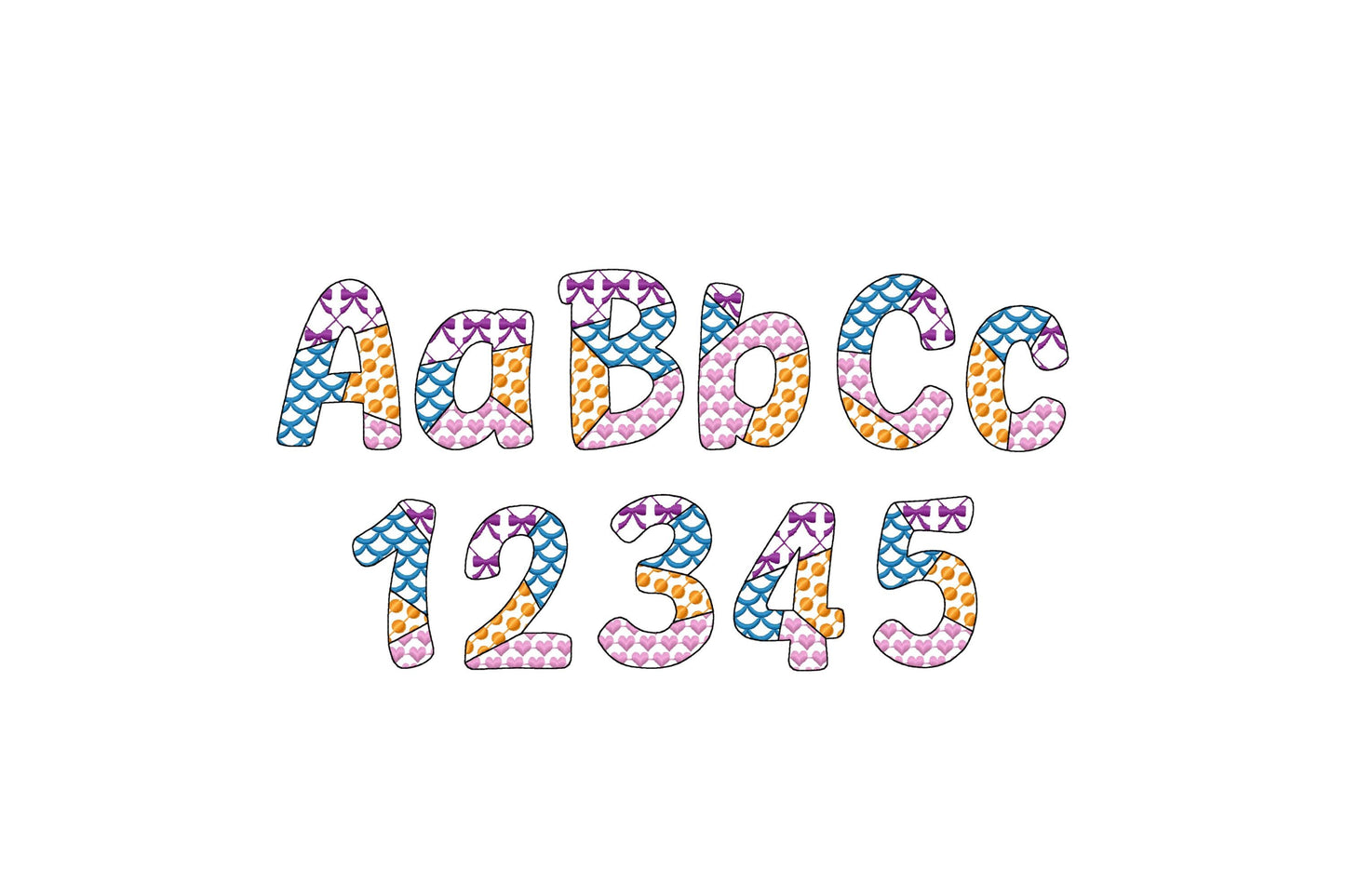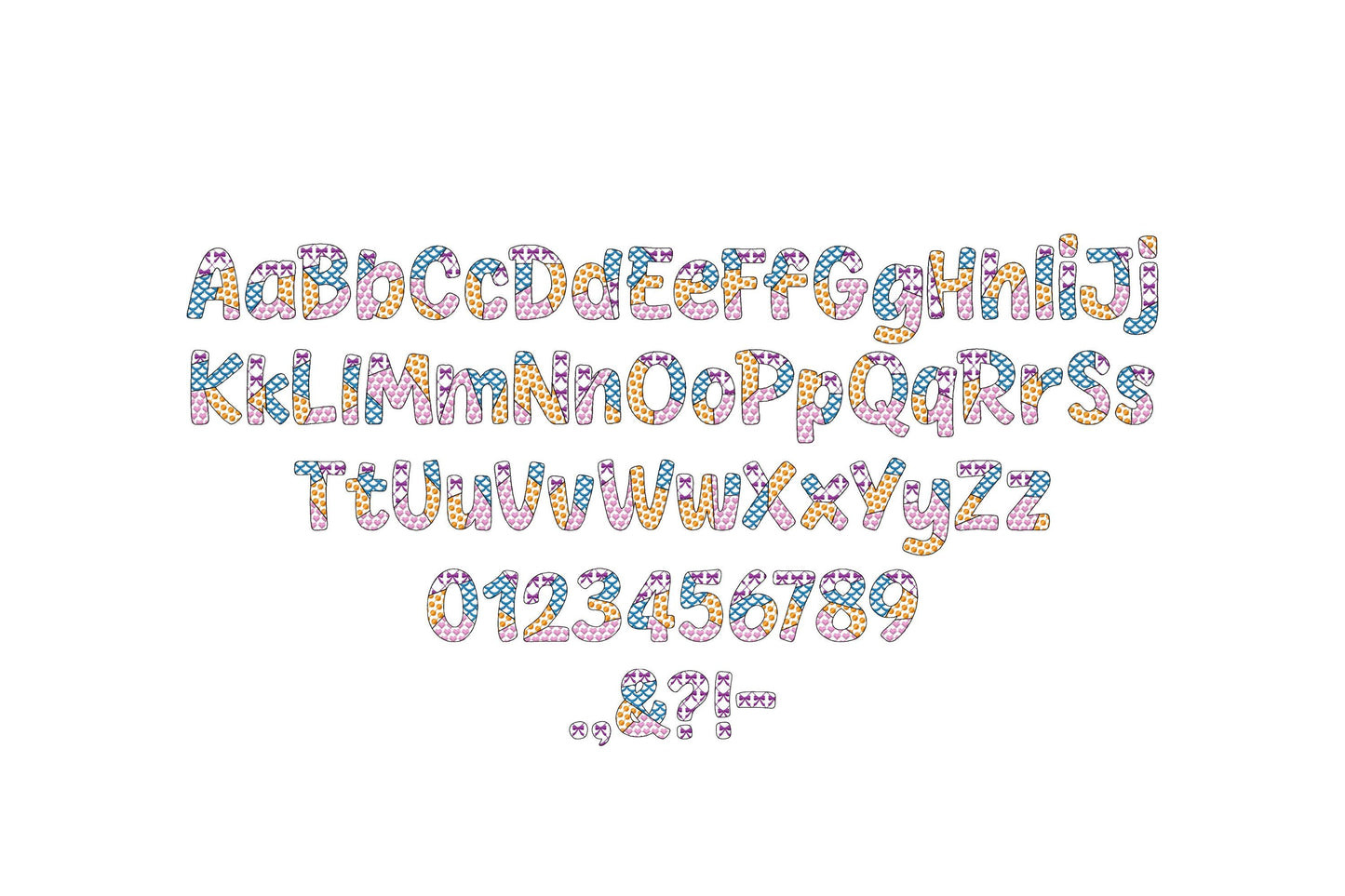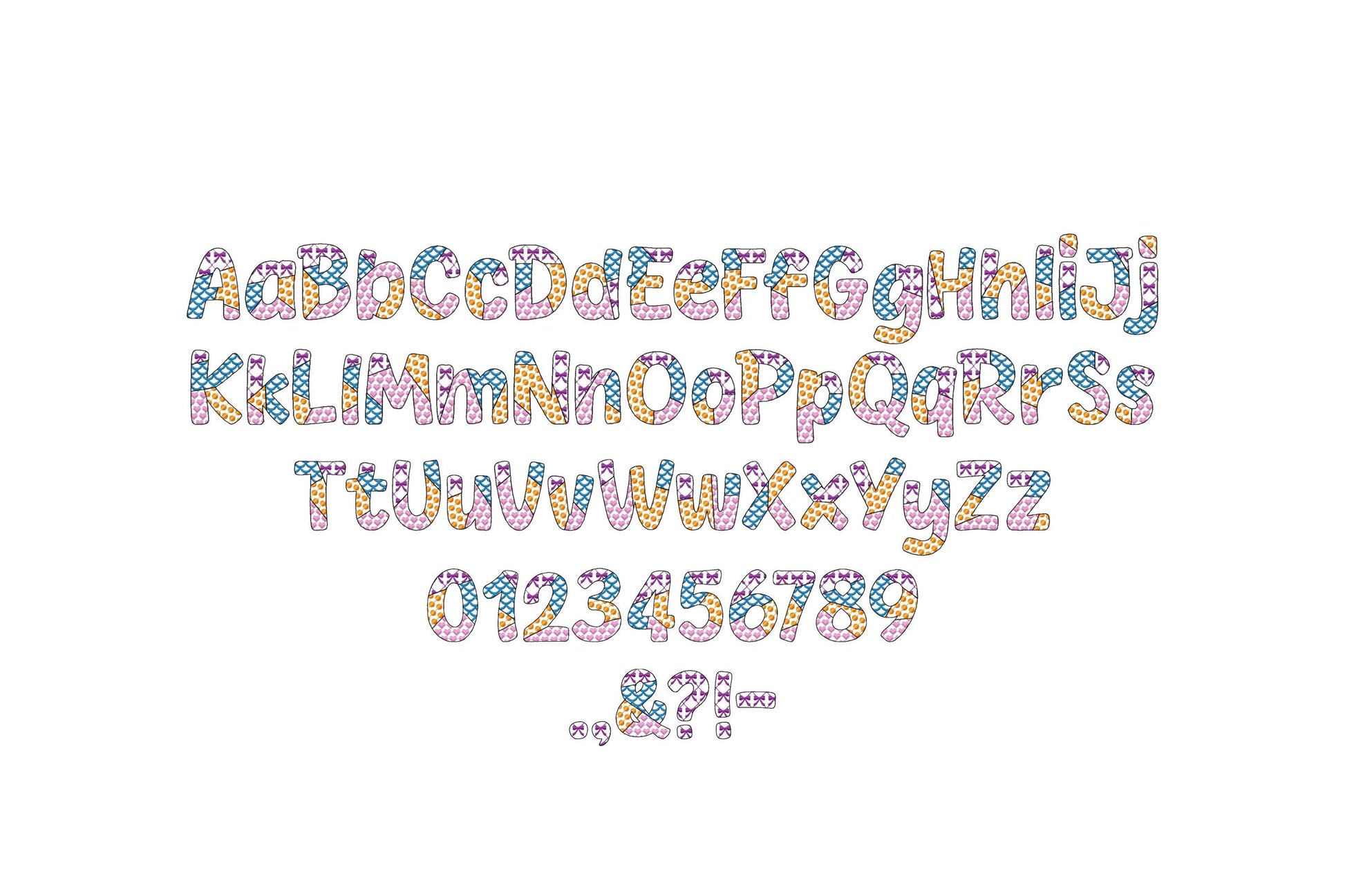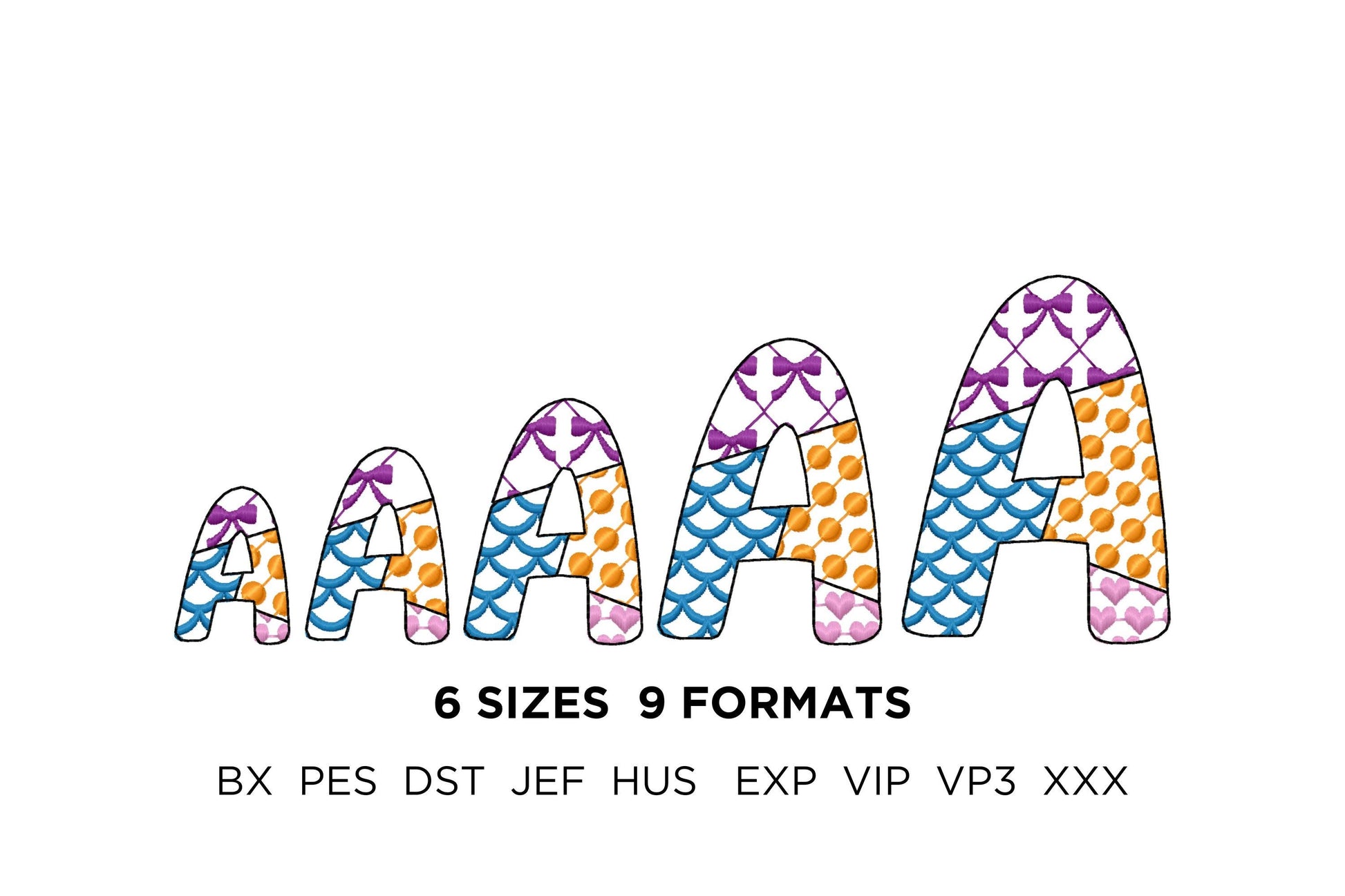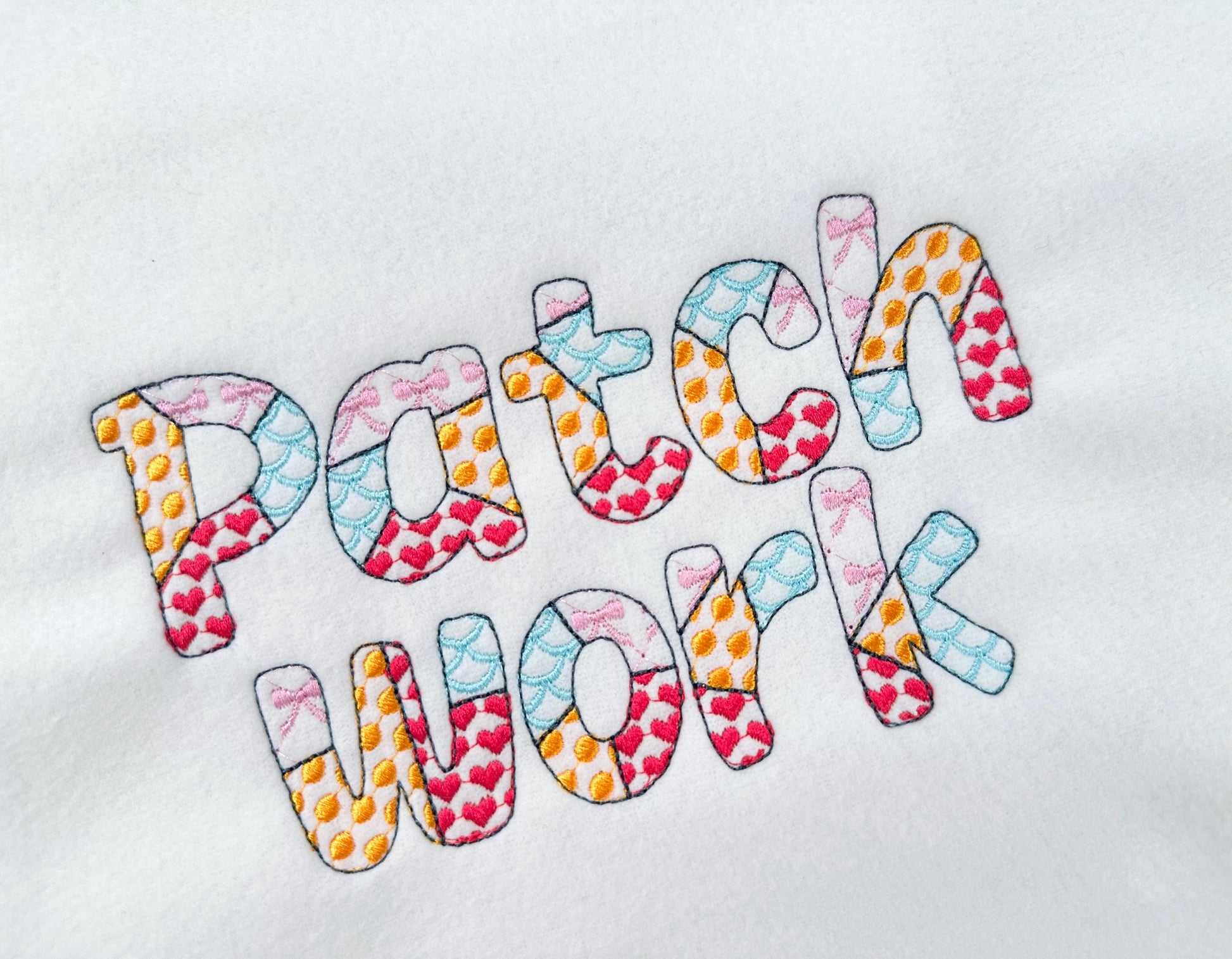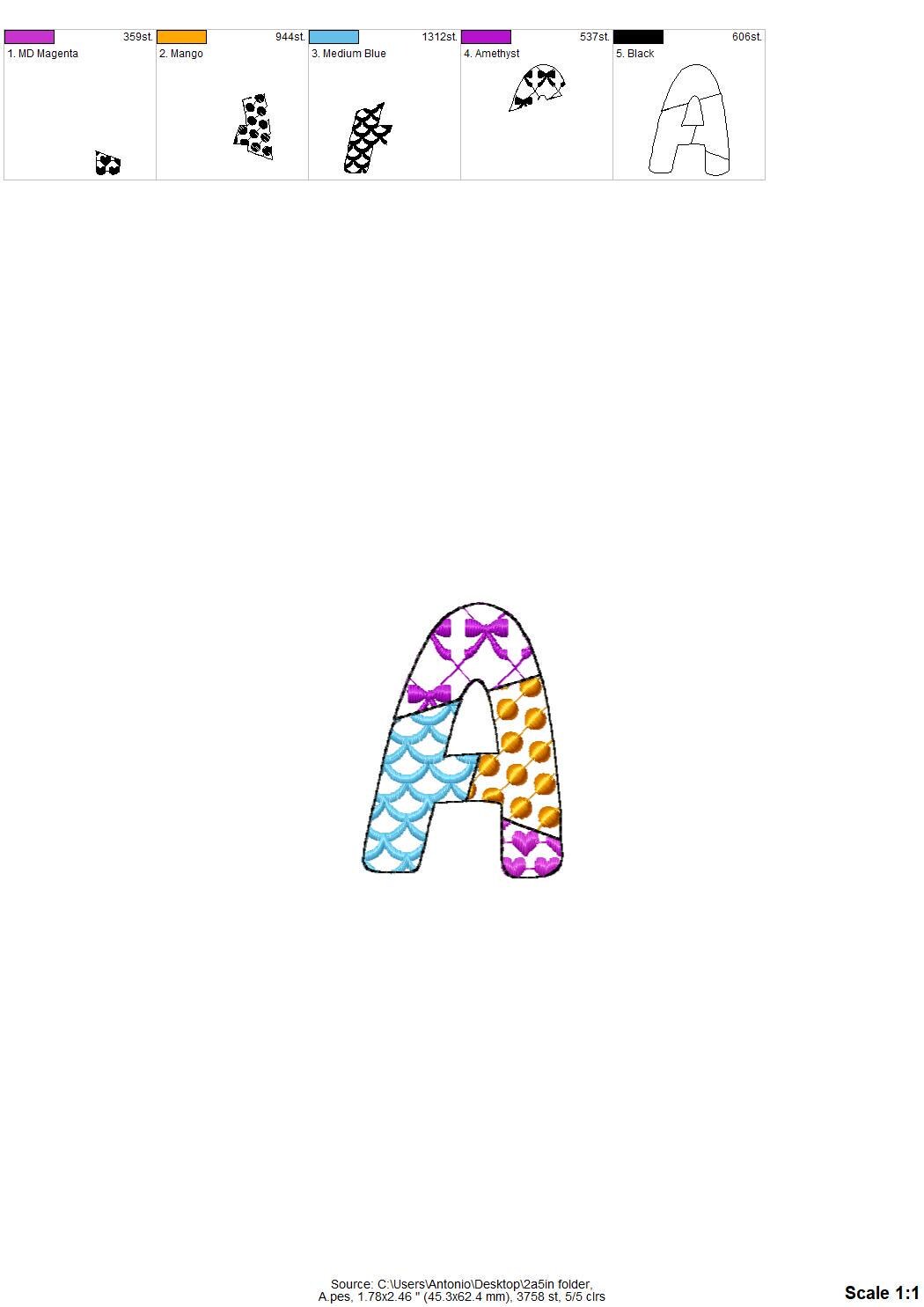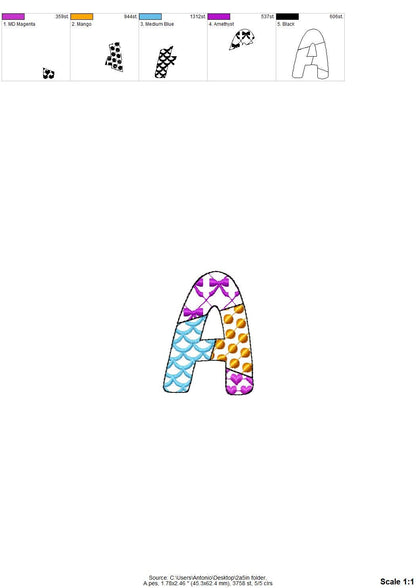
Patchwork Patterned Summer Font
Or click to open the linkA sweet farm patchwork font with summer patterns, in small sizes. Lovely for kids' shirts, pillows, bags and monograms.
Uppercase and lowercase letters, numbers 0 to 9 and punctuation. Five sizes: 1.3, 1.6, 2, 2.5 and 3 inches. The patterns are stitched inside an outline and the fabric shows through.
- Summer patchwork patterned font
- Uppercase, lowercase, numbers 0 to 9, punctuation
- 5 sizes, 1.3 to 3 in